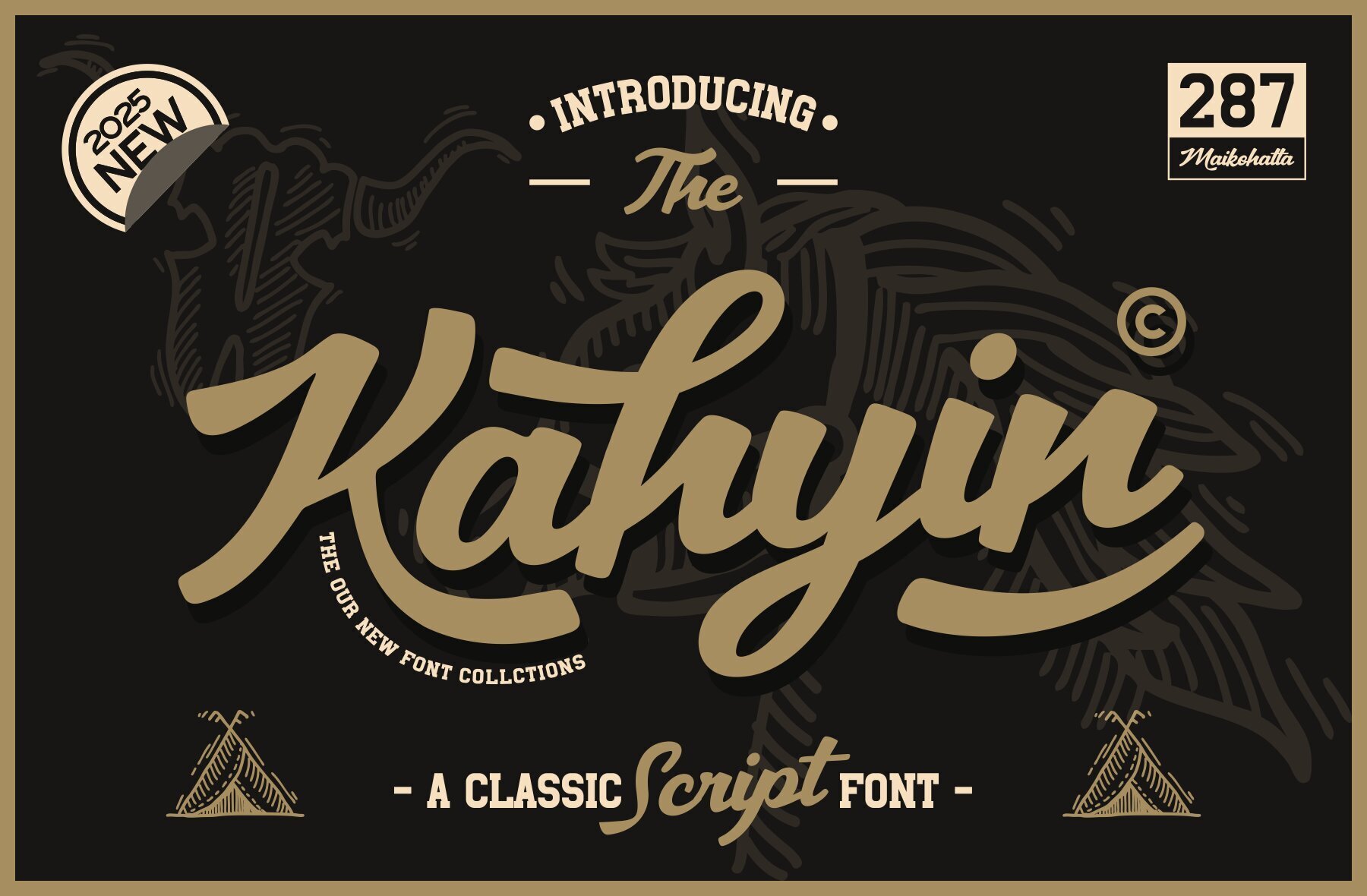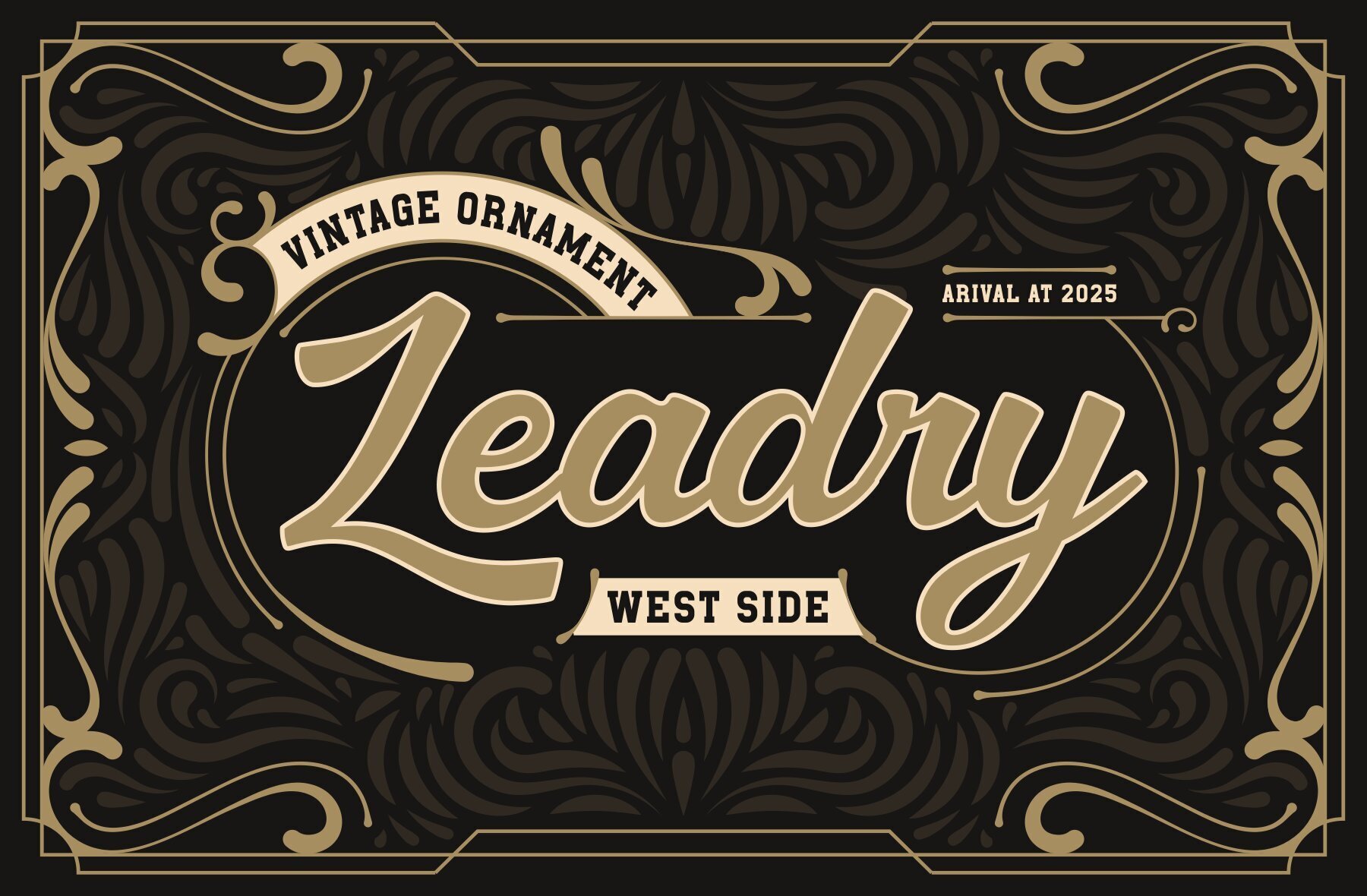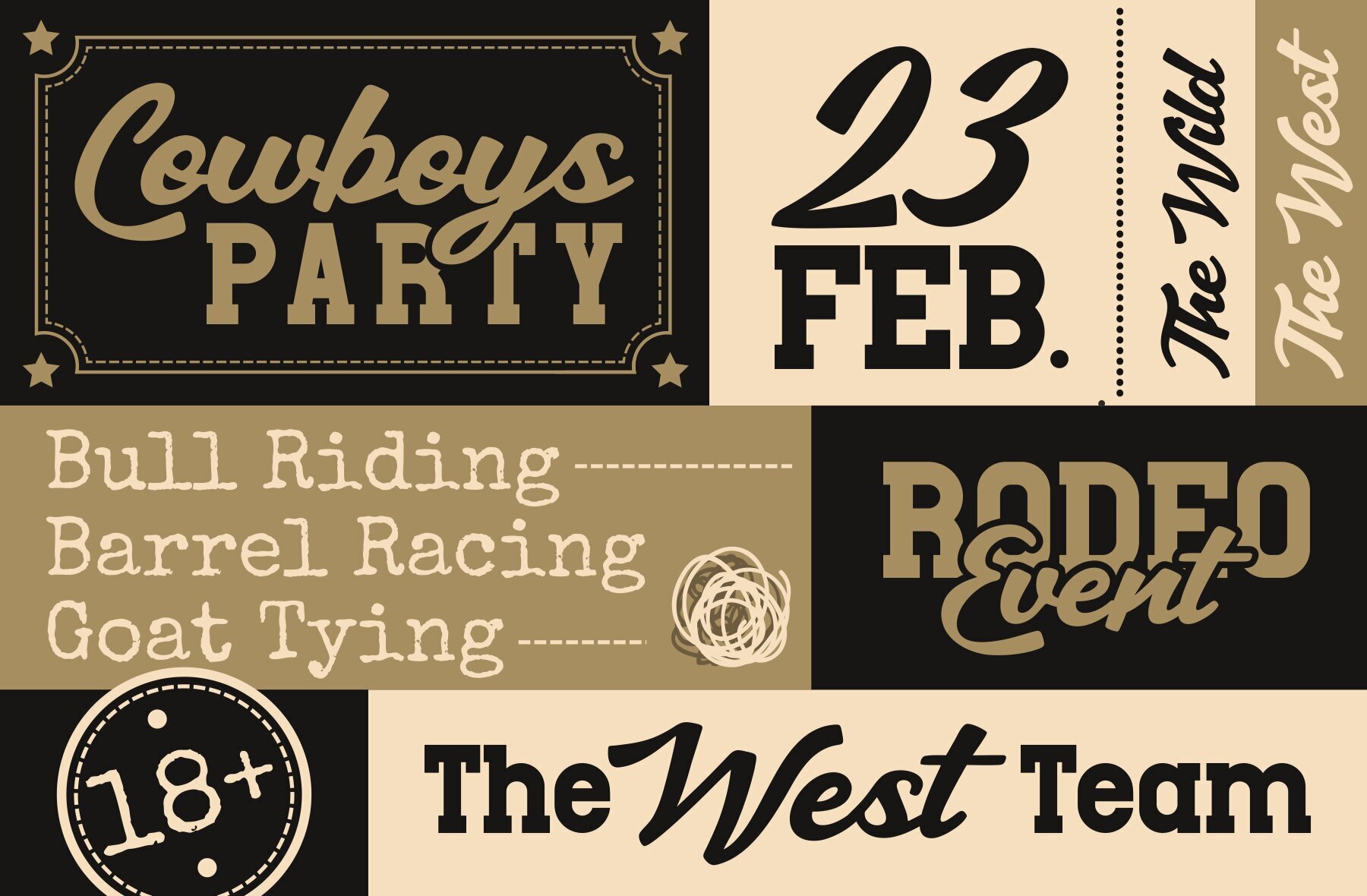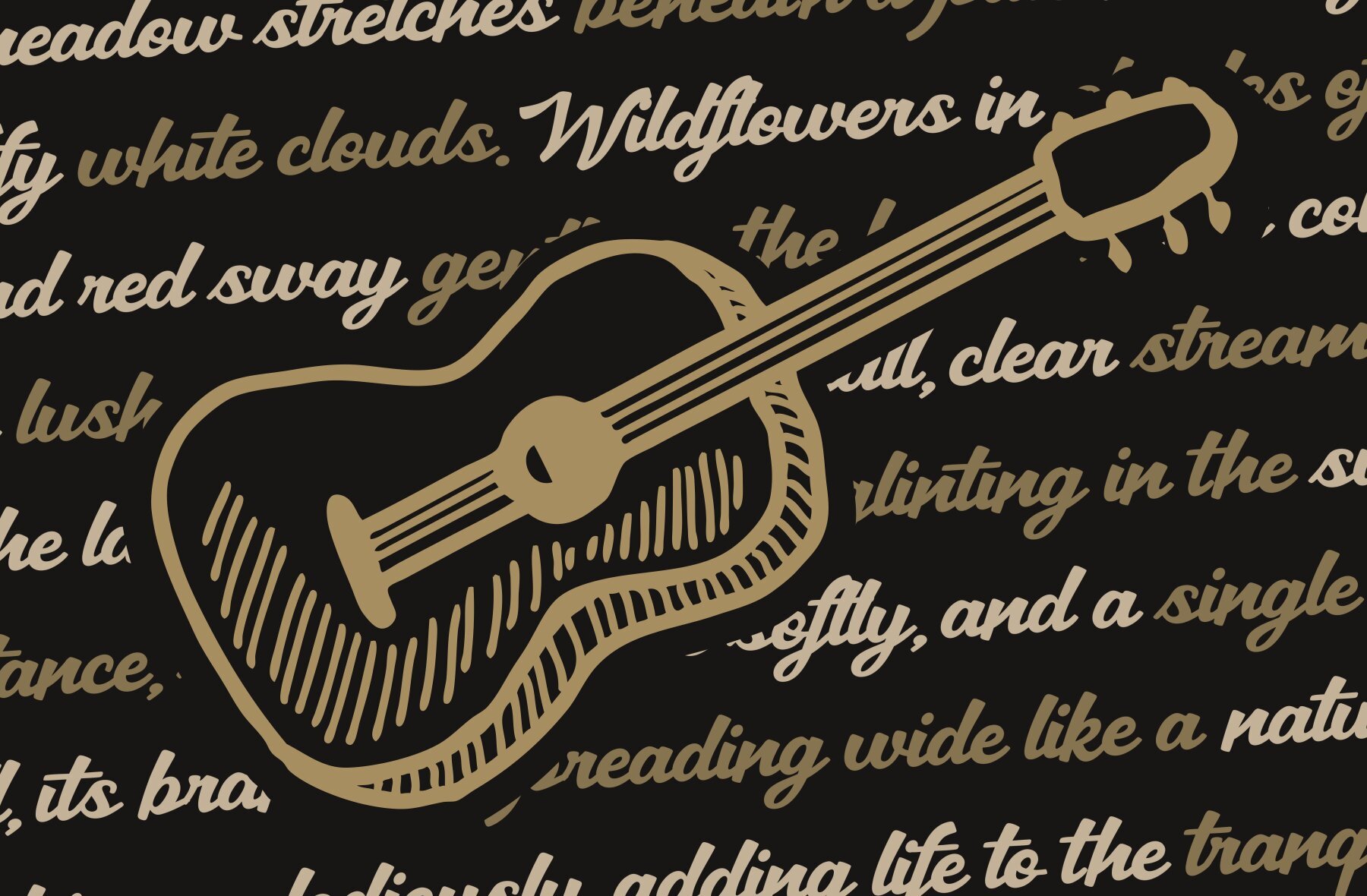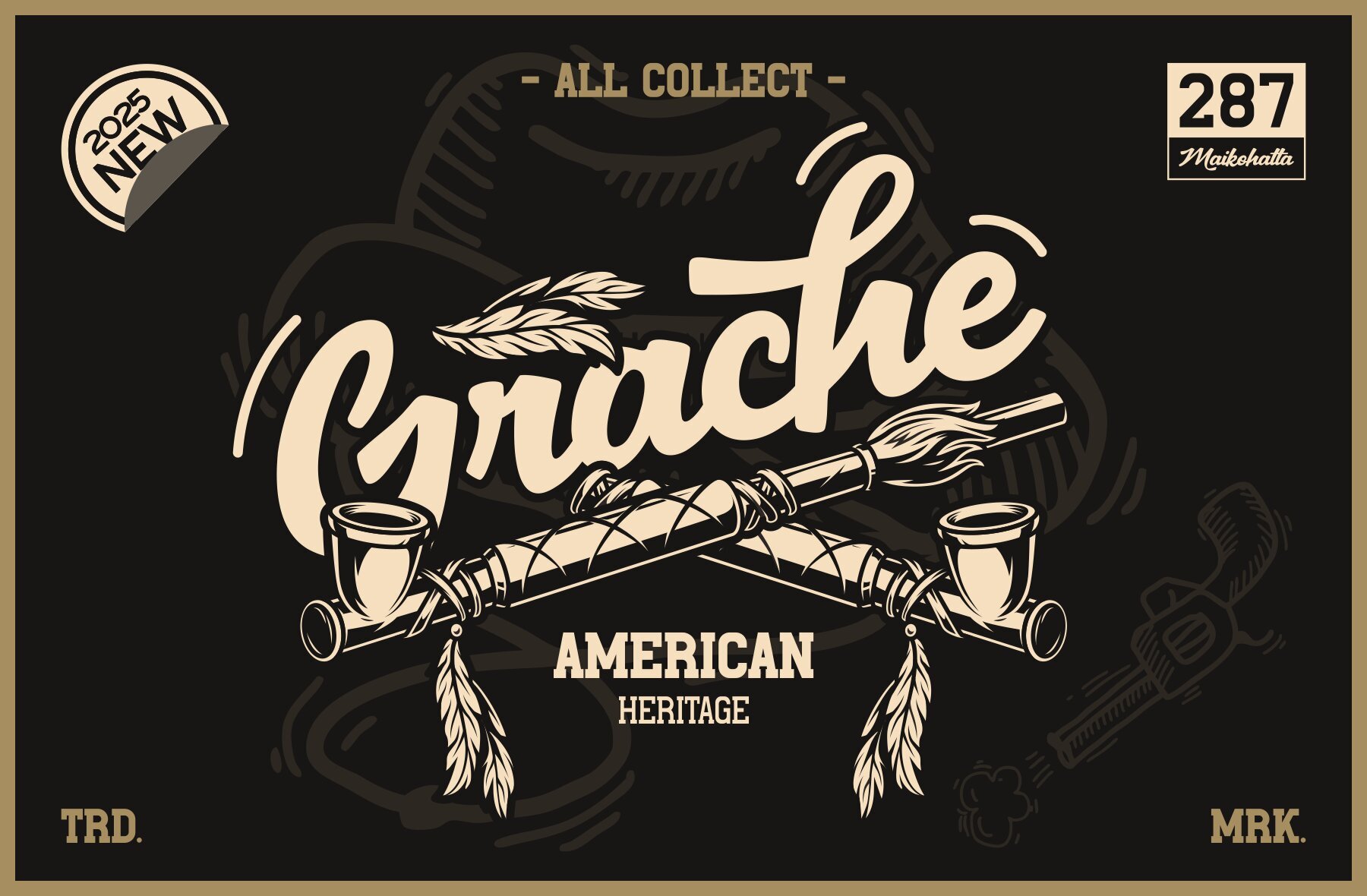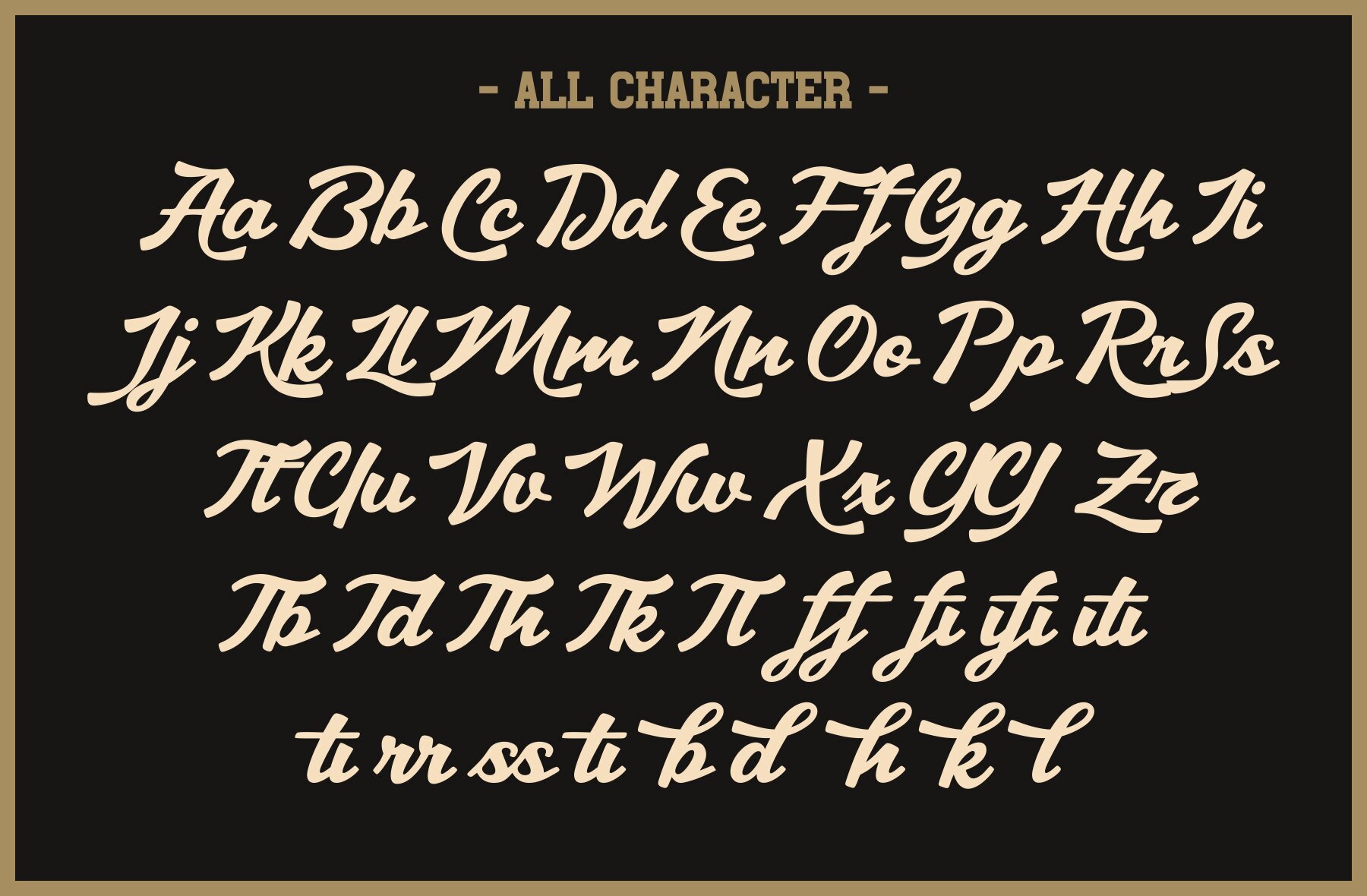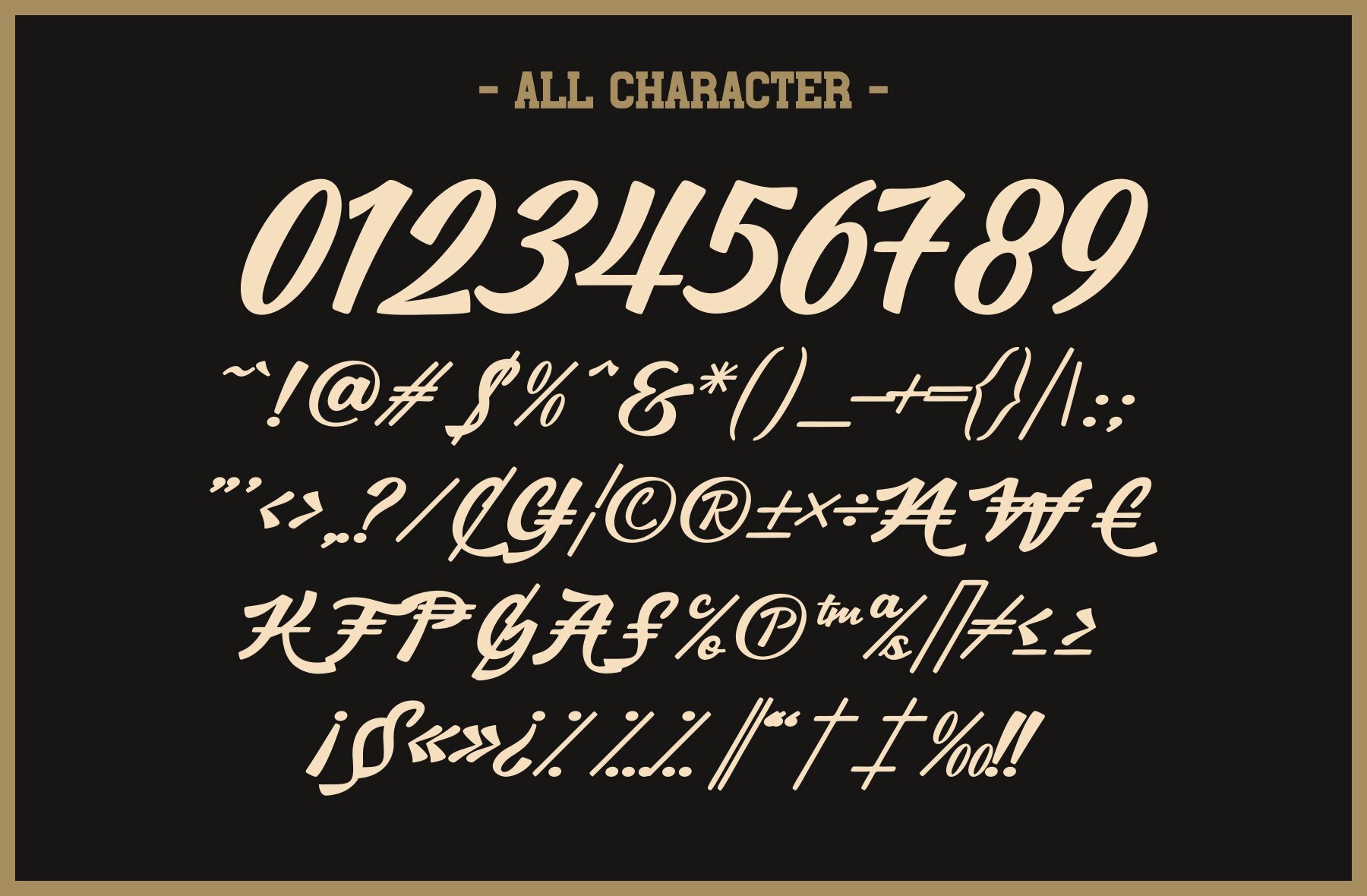
Kahyin Font
Kahyin
Kahyin is a versatile classic script font, ideal for various design projects that demand a clean and professional look. Its timeless appeal and contemporary style make it a valuable asset for graphic design and modern typography. The straightforward design enhances its visual appeal, making it suitable for a wide range of contexts.
Features of the Kahyin font include uppercase, lowercase, multilingual support, ligatures, and alternates. These features allow for creativity and flexibility, ensuring that your designs can be unique and customized to suit any requirement. Whether you're working on branding, editorial design, or other graphic projects, Kahyin provides the elegance and simplicity needed to make your designs stand out.